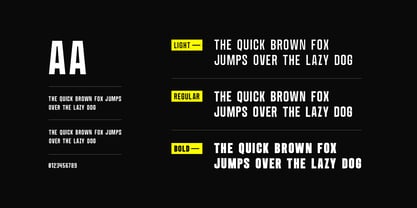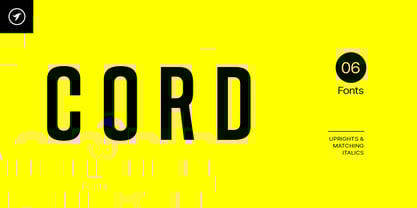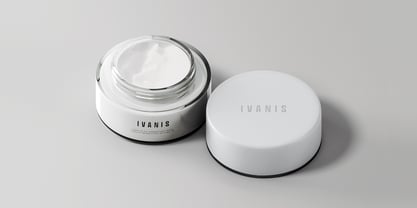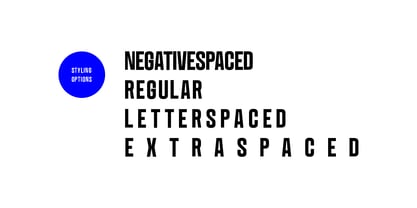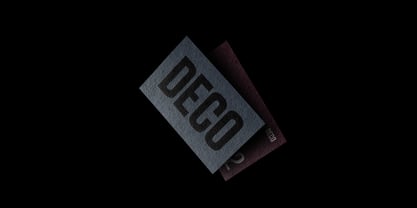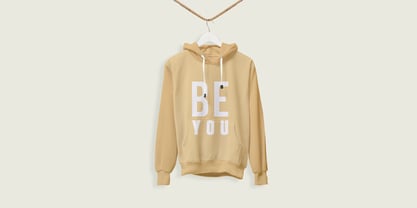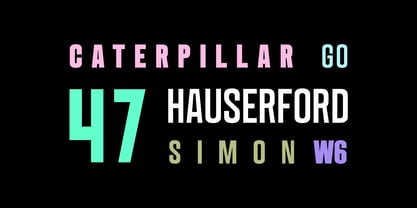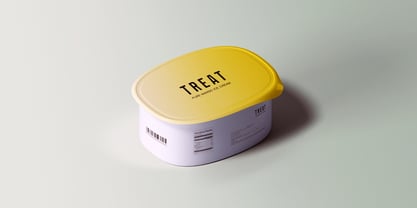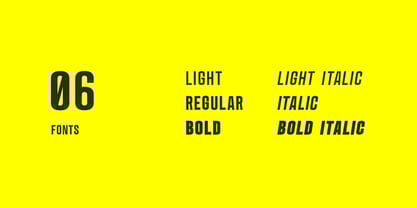
Cord Nuvo
The Cord Nuvo Font Family was designed by Jean Johnson and published by Designova. Cord Nuvo contains 6 styles and family package options. More about this family
CORD is a unique and modern all-caps font family for headlines, big text, branding, logotypes & display usage. This font is also perfect for creating outstanding logos, promotional content, and marketing graphics that can grab your visitors' attention. Adding or reducing the letterspacing of the font will give you more design options for your creative projects. Please see the examples above to get an idea about the capability of this typeface.
The CORD family contains a total of 6 fonts featuring three weights with uprights and italics. Each weight includes extended language support including Western European & Central European sets. A total of 272 glyphs are included.